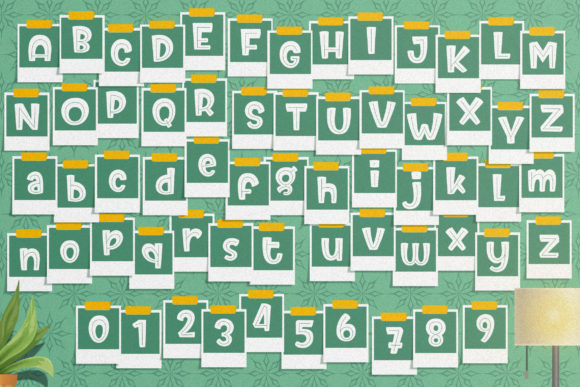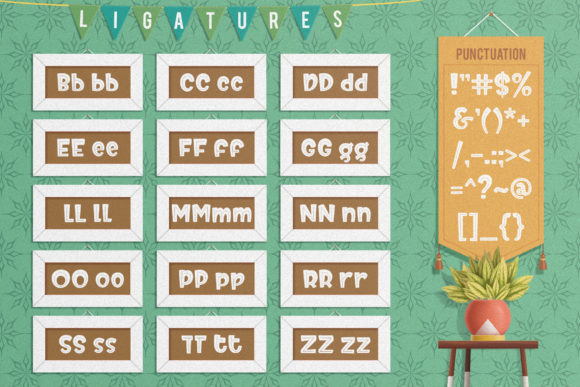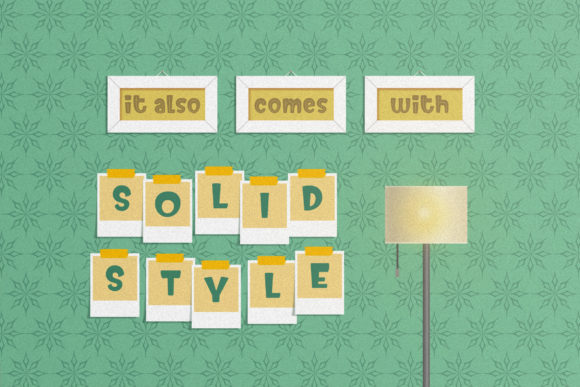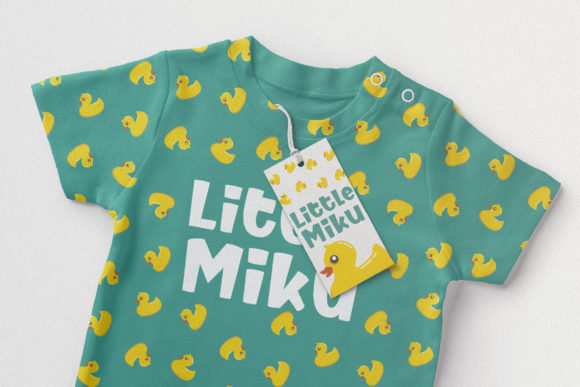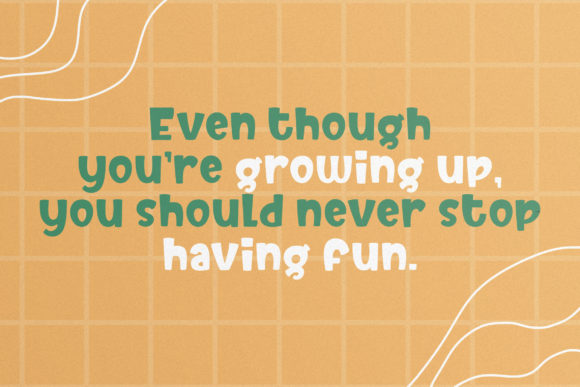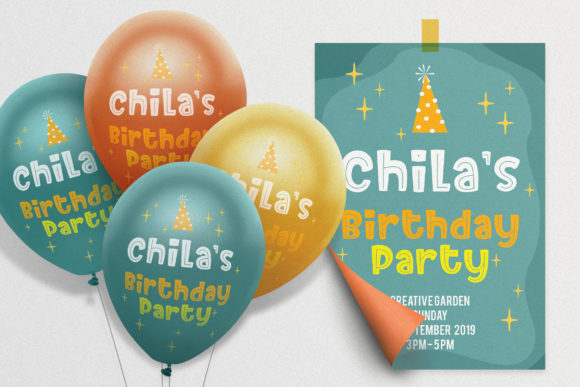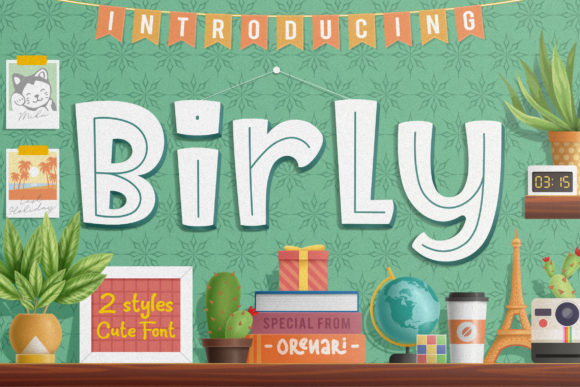
Discover the Whimsy of Birly Font: The Perfect Choice for Crafty Projects
Birly font is an extraordinary typeface that has captured the hearts of designers and crafters alike. With its unique blend of cuteness and playfulness, Birly is the ideal font for any whimsical crafts that require a touch of personality. In this article, we’ll dive into the world of Birly font, exploring its features, uses, and benefits for crafty projects.
The Birth of Birly Font
Birly font is a relatively new addition to the typography world, but it has quickly gained popularity among designers and crafters. Its creator aimed to design a font that would bring a sense of playfulness and fun to various projects, from crafts and DIY tutorials to branding and marketing materials.
What Makes Birly Font So Special?
Birly font stands out from other typefaces due to its distinctive characteristics. Here are a few features that make it so special:
- Cute and Playful: Birly font boasts a unique blend of cuteness and playfulness, making it perfect for projects that require a touch of whimsy.
- Highly Legible: Despite its playful nature, Birly font remains highly legible, even at small sizes, ensuring that your message is conveyed clearly.
- Versatile: Birly font can be used for a wide range of projects, from digital crafts and DIY tutorials to branding, packaging, and marketing materials.
- Easy to Pair: Birly font pairs well with other fonts, making it easy to create stunning typography combinations.
Uses of Birly Font
Birly font is an incredibly versatile typeface that can be used for various projects, including:
- Crafts and DIY Tutorials: Add a touch of whimsy to your craft tutorials, patterns, and instructions with Birly font.
- Branding and Marketing: Use Birly font to create eye-catching branding materials, such as logos, business cards, and brochures.
- Social Media Graphics: Add a playful touch to your social media graphics, including Facebook posts, Instagram stories, and Twitter headers.
- Packaging: Use Birly font to create adorable packaging labels, stickers, and tags.
Benefits of Using Birly Font
Birly font offers several benefits for designers and crafters, including:
- Time-Saving: With Birly font, you can create stunning typography in no time, saving you hours of design work.
- Consistency: Use Birly font across all your projects to maintain a consistent brand identity.
- Uniqueness: Stand out from the crowd with Birly font’s distinctive and playful style.
Tips for Using Birly Font
To get the most out of Birly font, follow these tips:
- Experiment with Sizes: Play around with different font sizes to create visual interest and hierarchy.
- Pair with Other Fonts: Combine Birly font with other fonts to create stunning typography combinations.
- Use Colors Wisely: Choose colors that complement Birly font’s playful and whimsical nature.
| Font Name | Birly Font |
| Author | Orenari |
Birly font is a game-changer for designers and crafters looking to add a touch of whimsy to their projects. With its unique blend of cuteness and playfulness, Birly font is the perfect choice for any crafty project that requires a dash of personality. Whether you’re creating crafts, branding materials, or social media graphics, Birly font is sure to bring a smile to your audience’s faces.